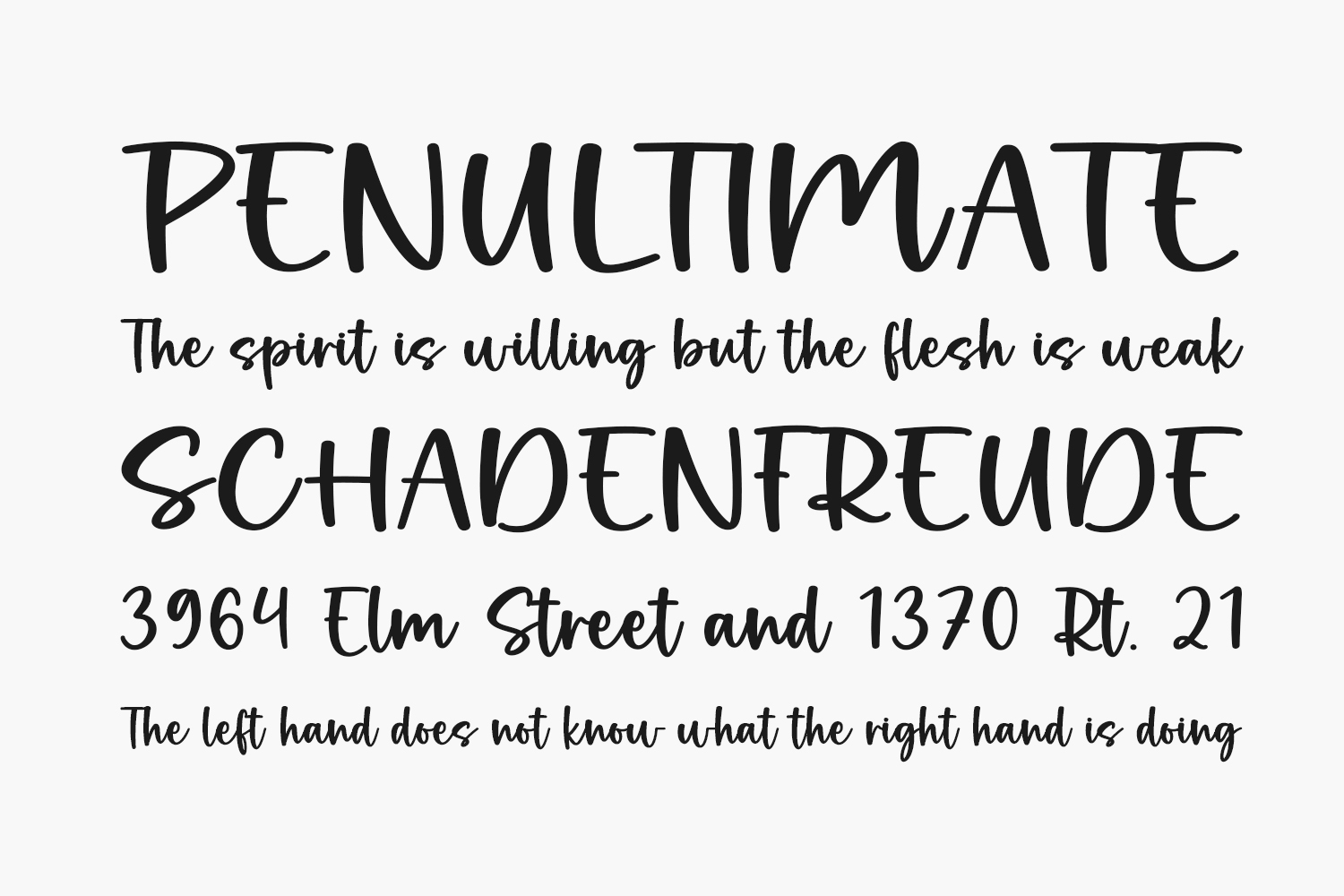
Discover the charm of Country Market Free Font, a sophisticated and flowing handwritten font. Its exquisite and harmoniously balanced characters make it an ideal choice for various designs, including wedding invitations, thank you cards, quotes, greeting cards, logos, business cards, and any project that calls for a graceful handwritten touch. Country Market Free Font is free for personal use only. Please purchase the full version for commercial use.